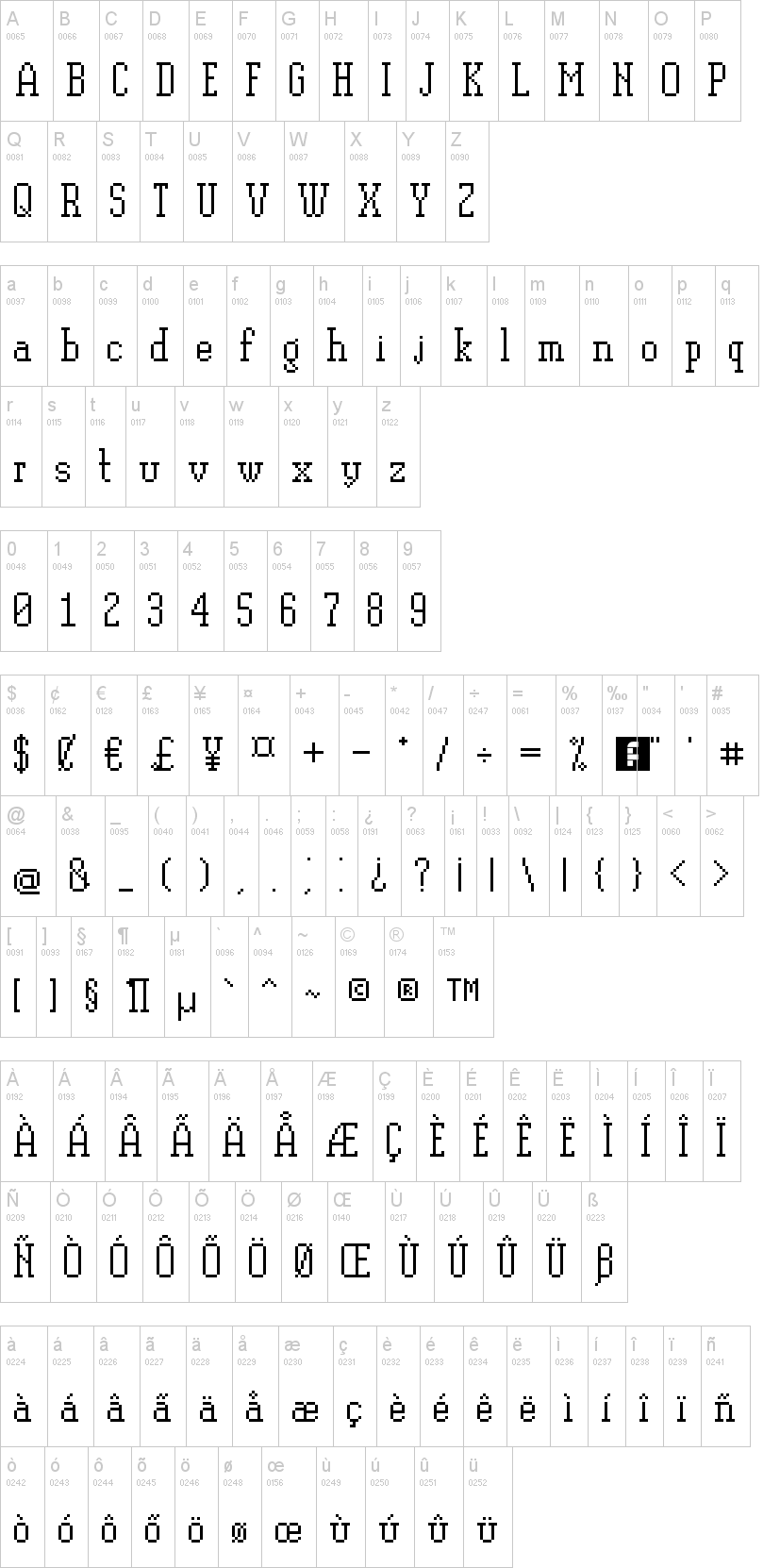
Note of the authorIt's major pixel project which includes a free font. Started it not so long ago. But soon it will result in a major project. One of the few free pixel fonts, which include a lot of letter forms. Other than the standard letters: Extended Latin A, Extended Latin B, Latin More, Extended Cyrillic. Perhaps in the near future this number increase and many other. This is font it will be used for personal purposes for the pixel project, which you will soon find out.